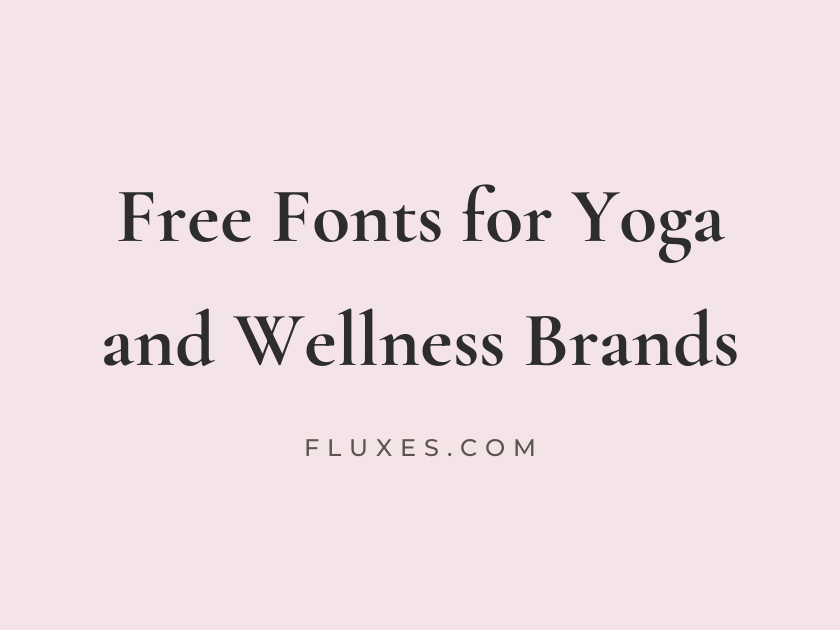
60 Best Free Fonts for Yoga and Wellness Brands
A wellness brand lives or dies on the feeling it gives before a single word is read. The right typeface can slow a visitor down, suggest breath and space, or signal that a studio is serious about alignment and craft rather than trendy for its own sake. Because free fonts from Google Fonts now cover everything from airy serifs to soft rounded sans, there is no need to license anything for a yoga studio site, a meditation app, a spa menu, or a retreat brochure.
The styles that tend to work best share a few traits: generous spacing, restrained contrast, and letterforms that feel handmade or breath-like rather than mechanical. Some brands lean toward a botanical, editorial calm; others want something more playful and approachable for a community studio or a wellness app interface. There is room for both directions below, along with a few scripts and display faces for logos, headers, and the occasional accent line.
Refined and slightly old-fashioned in the best sense, Cormorant Garamond carries the hand-cut elegance of classic French serifs into headlines and pull quotes. Its thin strokes and tall proportions give copy a sense of unhurried grace, which suits retreat branding and boutique studio websites that want to feel literary rather than clinical. It reads best set large; at small body sizes the thinner weights can thin out too much for comfortable reading.
The lighter, more experimental sibling of Cormorant Garamond, this family leans into fragile, almost calligraphic detailing. It works well as a display face for spa branding or meditation app splash screens where a whisper of luxury is the goal.
A faithful digital revival of Claude Garamond’s Renaissance type, EB Garamond brings warmth and legibility to long-form wellness content: blog posts, class descriptions, teacher bios. It never shouts, which makes it a dependable body-text partner for a bolder display serif or a soft script logo up top.
High contrast between thick and thin strokes gives Playfair Display real presence on a homepage hero or a retreat poster. It carries a touch of drama that suits premium spa and wellness resort branding, though it should be reserved for headlines since its delicate hairlines can look strained in small print. Pairing it with a plain humanist sans like Karla or Work Sans keeps a site feeling grounded rather than overdressed.
Prata has a stately, almost architectural rhythm that feels appropriate for Ayurvedic or heritage-minded wellness brands. Its serifs are crisp rather than soft, so it reads as confident and established rather than fragile.
Cool, classical, and evenly weighted, Marcellus suits logotypes and section headers for spas and yoga retreats that want understated sophistication without any decorative flourish. It sits comfortably next to a rounded sans for supporting text.
Originally designed for classical and biblical scholarship, Cardo carries a scholarly calm that translates surprisingly well to wellness writing, meditation guides, and philosophy-driven studio content. It is a strong, underused choice for readers who spend real time with the text.
Crimson Pro is a workhorse text serif with a soft, book-like texture that keeps long paragraphs comfortable to read. It is a natural fit for wellness journals, newsletters, and blog templates where readability matters more than flash.
Spectral has a slightly modern, screen-optimized structure beneath its traditional serif shapes, making it a good pick for wellness publications and online courses that need a literary tone at digital reading sizes.
Libre Caslon Text
Sturdy and unpretentious, this Caslon revival brings a settled, trustworthy feeling to service pages and pricing tables. It is less decorative than the display serifs on this list, which makes it useful anywhere a wellness brand needs a serif that behaves like a sans in terms of practicality.
Every letter in Italiana is stretched thin and wide, giving it a fashion-editorial, almost perfume-label quality. It belongs in logotypes and short luxury spa headlines rather than paragraphs, where its extreme delicacy would disappear.
Fraunces blends old-style serif warmth with a slightly wonky, hand-finished character that feels organic rather than corporate. Its optical size axis lets it shift from a soft, almost furry display weight to a cleaner text weight, so a single family can carry both the hero headline and the body copy on a wellness site. Among the serifs here, it is the one that feels most like it was drawn by hand rather than ruled with a compass.
Aleo
Nourish your body from the inside
Aleo
A geometric slab serif with rounded terminals, Aleo has a friendly, contemporary warmth that suits nutrition-focused wellness brands and health coaching sites. It is sturdy enough for buttons and labels, unusual for a serif.
Unwind, restore, and reconnect
Yeseva One is a bold, curvaceous display serif with real personality, good for spa logos and retreat titles that want warmth without going fully script. Keep it to short phrases; its density makes longer lines feel heavy.
Move with intention, live with ease
Poppins has become something of a default for wellness apps and studios, and for good reason: its geometric circles and even weight give it a clean, friendly confidence at any size. It works equally well in a meditation app interface, a class schedule, or a logo, which is why it shows up so often as the backbone of a wellness brand’s whole typographic system. The tradeoff is ubiquity; if a brand wants to feel distinctive rather than familiar, Poppins may be better used for UI text while a serif or script carries the personality up top.
Gentle movement, open heart, calm mind
Rounded terminals give Quicksand a soft, approachable feel that suits community yoga studios, kids’ wellness programs, and mindfulness apps aimed at a broad audience. It reads as friendly rather than clinical, without tipping into cartoonish, and pairs comfortably with a calmer serif for body copy.
Soft edges for a softer practice
Nunito’s rounded, slightly condensed letterforms feel comforting on screen, making it a solid choice for meditation app UI, onboarding screens, and notification text where warmth matters as much as clarity.
Clarity and calm in every word
The straight-terminal companion to Nunito, this version trades softness for a cleaner, more neutral tone, useful for wellness brands that want approachability without looking playful.
Center yourself in the present moment
Inspired by 1920s geometric sans classics, Jost has a minimal, Bauhaus-adjacent structure that feels modern and unfussy. It suits minimalist spa and studio branding that leans architectural rather than decorative.
Light, airy, and full of space
Tall x-height and wide, elegant proportions make Josefin Sans feel airy on the page, almost like it is exhaling. It is a favorite for boutique wellness branding that wants a vintage, art-deco touch without heaviness.
Steady practice builds a steady mind
Work Sans is refreshingly plain and highly legible, an ideal utility font for body copy, navigation, and forms on a wellness site where the design’s personality lives elsewhere. It rarely calls attention to itself, which is exactly the point.
Simple habits, lasting transformation
Karla has a slightly grotesque character with rounded corners softened just enough to feel human. It is dependable for interface text and pairs well with almost any display serif on this list.
Rest deeply, rise renewed
Mulish is understated and low-contrast, built for extended reading on screen. It works well in wellness newsletters and course platforms where large blocks of instructional text need to stay comfortable.
Balance is a practice, not a destination
Lato has a warm, semi-rounded structure that reads as friendly and humanist rather than corporate, despite being one of the most widely used sans faces online. It is a safe, versatile choice for wellness brand systems that need one font to do a lot of work.
Elegant simplicity for mindful living
Raleway’s thin weights carry an elegant, fashion-forward lightness that suits minimal spa and skincare branding. Its heavier weights hold up fine for buttons and labels, giving one family real range.
Strength and softness, held together
Montserrat’s geometric letterforms, inspired by old Buenos Aires signage, give it a confident, urban-modern feel. It suits fitness-adjacent wellness brands, like yoga studios with a strength or Pilates component, that want energy alongside calm.
Everyday rituals for everyday peace
Assistant is quiet in temperament without being visually boring, a clean, low-key sans that works especially well in multilingual wellness sites given its broad script support.
Grounded, honest, and easy to read
Slightly rounded corners on an otherwise grotesque skeleton give Rubik an approachable, contemporary warmth. It holds up well in both display sizes and UI text, making it efficient for wellness app design systems.
Open your mind, open your practice
Manrope is a modern, semi-geometric sans with clean apertures and a slightly technical polish, well suited to wellness tech products, subscription meditation apps, and telehealth platforms that need to feel calm but credible.
Design your day around stillness
Outfit has a crisp, minimal geometry that feels current without chasing trends too hard. It is a strong choice for modern spa and wellness branding built around a lot of white space.
Focus the mind, release the tension
Sora carries a soft geometric warmth with slightly quirky details in its rounder characters, giving it a bit more character than a purely neutral sans while staying easy to read in interfaces.
Small rituals, meaningful change
DM Sans is a low-contrast, tightly spaced geometric sans built specifically for screens, which makes it dependable for wellness app dashboards, class booking systems, and any interface where text needs to stay crisp at small sizes.
A modern approach to ancient practice
Urbanist’s wide, clean geometry feels contemporary and slightly minimal-luxury, a good match for wellness brands positioning themselves as modern takes on traditional practices like yoga or meditation.
Soft focus, steady breath, quiet strength
Figtree is friendly and rounded without being cutesy, a comfortable middle ground for wellness brands that want warmth in their UI without losing professionalism.
Albert Sans
Simplify your practice, simplify your life
Albert Sans
Albert Sans is clean and understated with just enough personality in its curves to avoid feeling generic, a solid, low-drama choice for body text across a wellness brand’s website and app.
Presence over perfection, always
Epilogue has a slightly condensed, editorial quality that works well in wellness content platforms and blogs wanting a more contemporary, magazine-like typographic voice.
Be Vietnam Pro
Wellness rooted in everyday practice
Be Vietnam Pro
This humanist sans has a soft geometric warmth and excellent legibility across weights, making it a flexible pick for wellness brands that need strong multilingual support alongside a calm, modern look.
Clarity, calm, and consistent care
Built for screens above all else, Inter is about as neutral and legible as sans-serifs get, which makes it a dependable backbone for meditation app interfaces, dashboards, and booking systems where clarity matters more than character.
Soft curves, calm mind, open heart
Comfortaa’s rounded, geometric letterforms feel gentle and a little playful, well suited to logos and headlines for community studios or family-friendly wellness programs. It gets visually heavy in long paragraphs, so it is best kept to short display use.
Joyful movement, mindful living
Chunky and rounded, Baloo 2 brings a cheerful, approachable energy that suits children’s yoga, family wellness, or playful self-care brands rather than a hushed luxury spa.
Ease into a softer rhythm
Varela Round has smooth, evenly weighted curves that read as calm and modern rather than childish, making it more versatile for general wellness UI than some other rounded fonts.
- Language support: Latin, Latin Extended, Hebrew, Vietnamese
Breathe easy, move freely, smile often
Fredoka’s bouncy, bubble-like forms carry a genuine warmth and optimism, ideal for wellness apps aimed at beginners or younger audiences who might find a serious serif intimidating.
Namaste, and welcome to your practice
A fine, single-stroke script with a relaxed, hand-lettered flow, Sacramento works beautifully as an accent word above a bolder headline, such as a logo mark or a welcome banner. It should never carry more than a few words at a time.
Find your flow, find your calm
Alex Brush mimics real brush calligraphy with confident, sweeping strokes, giving it a romantic, handmade quality that suits spa signage and retreat invitations more than body text.
A gentle path back to yourself
Delicate and looping, Allura carries an intimate, personal-letter quality that works well for wellness brands built around one-on-one coaching or personalized retreat experiences.
Slow down and simply breathe
Parisienne has a soft, rounded script character with a French, café-adjacent charm, a nice fit for wellness cafes, tea brands, and boutique spa signage.
Restore your energy, one breath at a time
Great Vibes is a flowing, elegant script often reserved for wedding invitations, but its graceful loops translate just as well to spa logos and retreat branding that want a touch of romance. Because it is quite ornate, it needs generous surrounding space and a plain sans nearby to stay legible.
Every breath is a new beginning
Sharper and more formal than most casual scripts, Pinyon Script suits upscale wellness resort branding where the tone leans closer to fine hospitality than casual studio life.
Peace begins with a single breath
Tangerine is extremely light and thin, giving it a fragile, luxurious quality best suited to large decorative headlines rather than anything requiring strong legibility.
Simple. Honest. Grounded. Present.
Condensed, hand-drawn, and a little rough around the edges, Amatic SC brings a warm, artisanal feel to short headlines and labels, evoking chalkboard studio signage more than polished luxury.
- Language support: Latin, Latin Extended, Cyrillic, Hebrew, Vietnamese
Jot down your intentions and breathe
Caveat looks like genuine handwriting rather than formal calligraphy, which makes it useful for personal touches: a founder’s note, a handwritten-style quote, or a journaling app interface.
Written reminders for a mindful day
Kalam has a casual, marker-like quality with a bit more weight than Caveat, giving it good presence in pull quotes or annotation-style text on a wellness blog.
Dance gently through each new day
Bouncy and cheerful, Dancing Script is one of the most legible casual scripts available, making it a safe choice for logos and headers that want a handwritten warmth without sacrificing readability.
Ancient wisdom for modern living
Carved from the proportions of Roman inscriptions, Cinzel brings a solemn, timeless gravity to wellness brands drawing on ancient practices like yoga, Ayurveda, or meditation lineages.
Tenor Sans
Space to think, space to heal
Tenor Sans
Tenor Sans is clean, wide, and quietly confident, a favorite in beauty and wellness branding for its calm, editorial restraint in all-caps logotypes and navigation.
Julius Sans One
Light, spacious, and unadorned
Julius Sans One
Extremely thin and widely spaced, Julius Sans One works best in small doses, such as an all-caps tagline beneath a logo, where its minimalism reads as intentional rather than weak.
Marcellus SC
Timeless calm for modern wellness
Marcellus SC
The small-caps variant of Marcellus, this version adds a formal, engraved quality suited to spa menus and certificate-style wellness credentials.
Elegant simplicity, effortless grace
An art-deco geometric face with extremely thin strokes, Poiret One suits decorative headlines for luxury spa branding but disappears entirely at small sizes, so it should be reserved for large, deliberate display use.
Montserrat Alternates
Refined details for a refined practice
Montserrat Alternates
This variant swaps some of Montserrat’s letters for softer, more rounded alternates, giving logotypes a slightly more organic, boutique feel while keeping the geometric confidence of the original family.
Sacred space, sacred practice
The ornamented cousin of Cinzel, this display face suits wellness brands built around ritual, ceremony, or ancient tradition, best used sparingly on a cover page or retreat title rather than throughout a site.
Pairing and usage tips for wellness branding
Keep contrast simple: one calm sans for body copy, one serif or script for headlines, and nothing more. Wellness readers respond to restraint, so resist the urge to mix more than two families on a single page.
Give type room to breathe. Generous line height and wide margins do as much for a calm feeling as the letterforms themselves.
Reserve scripts and thin display serifs for short phrases, logos, and hero headlines. Anything meant to be read closely, like class descriptions or blog posts, should sit in a plain, legible sans or a sturdy text serif such as EB Garamond or Crimson Pro.
Whether the goal is a hushed spa retreat, a lively community studio, or a meditation app meant to be read on a phone at midnight, there is a free typeface here suited to the job. The best approach is usually the simplest: pick one calm workhorse for reading, one expressive face for feeling, and let the white space do the rest.